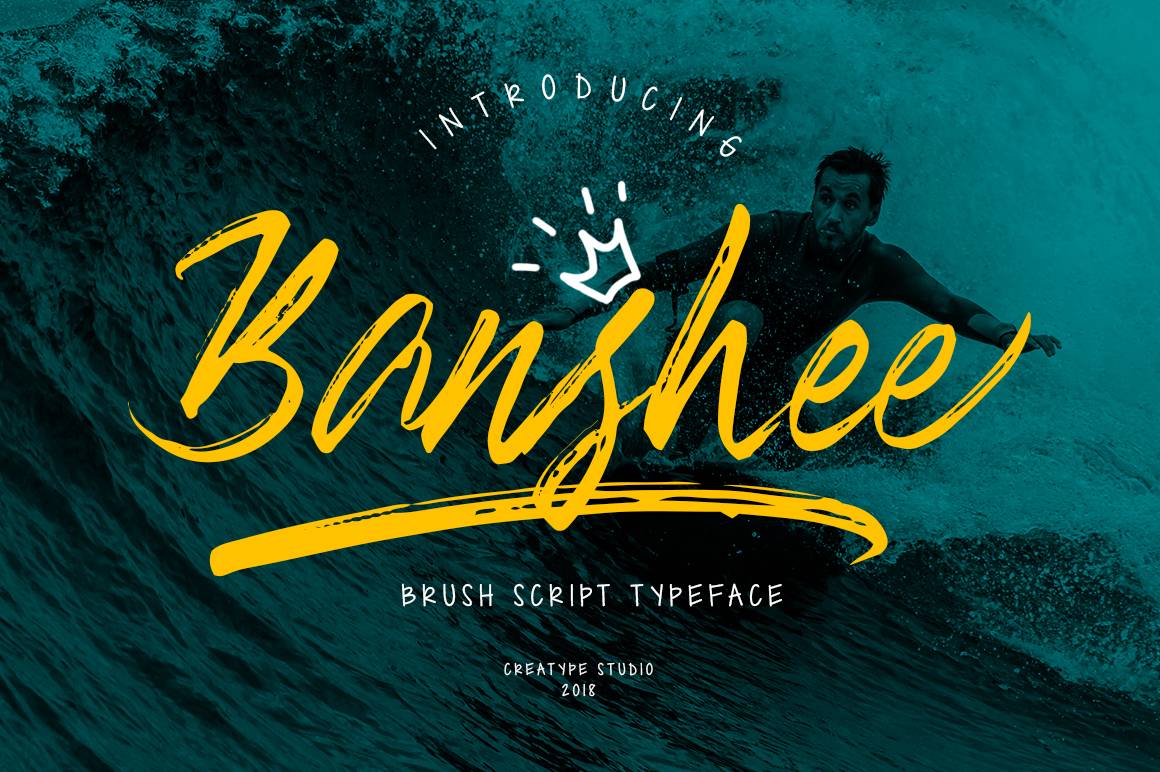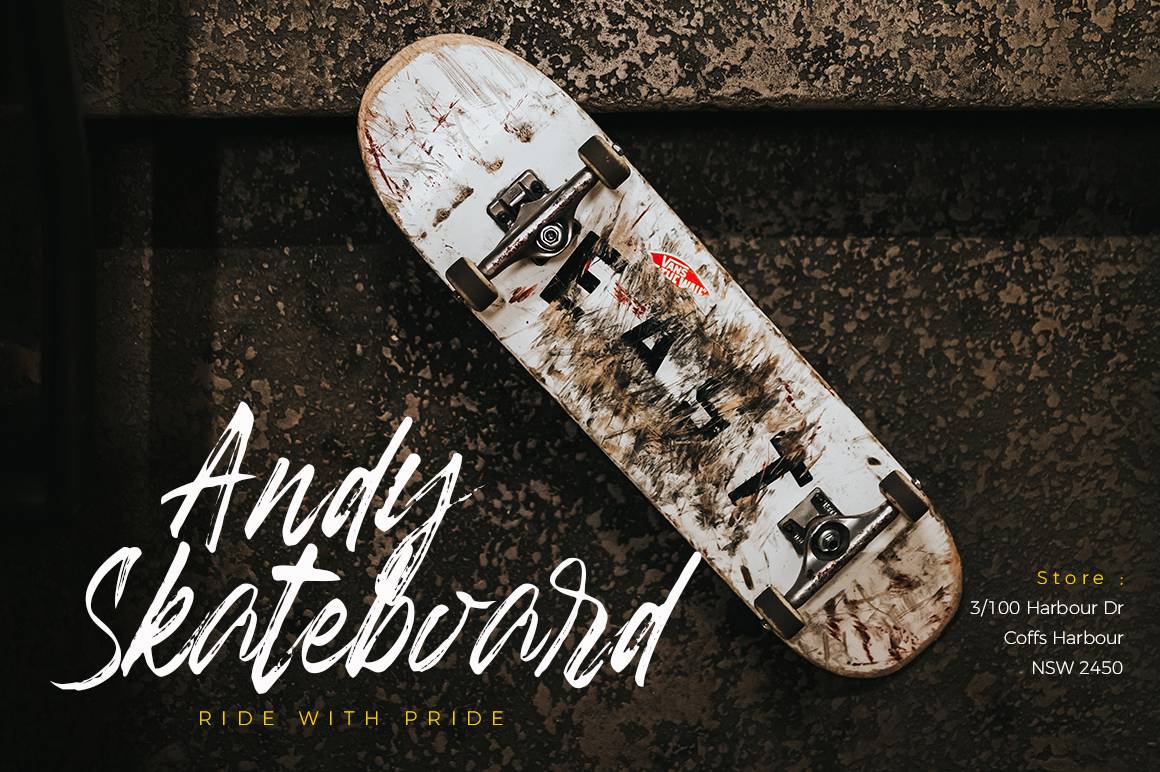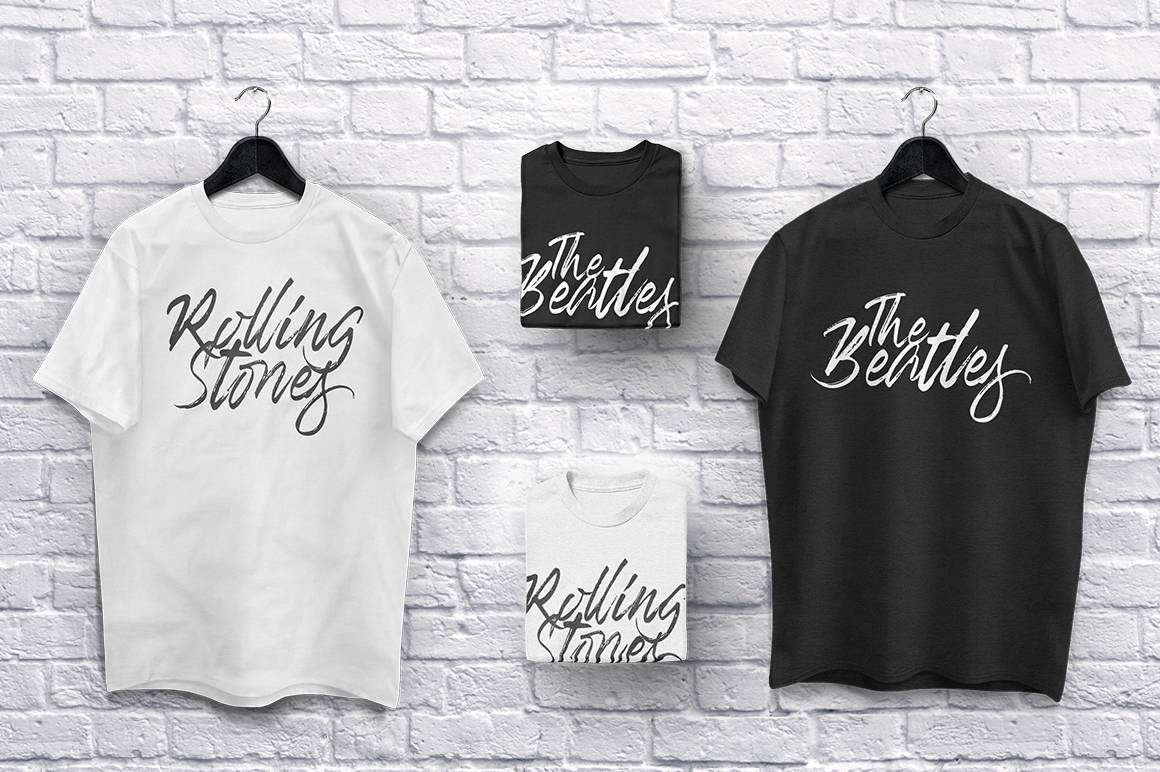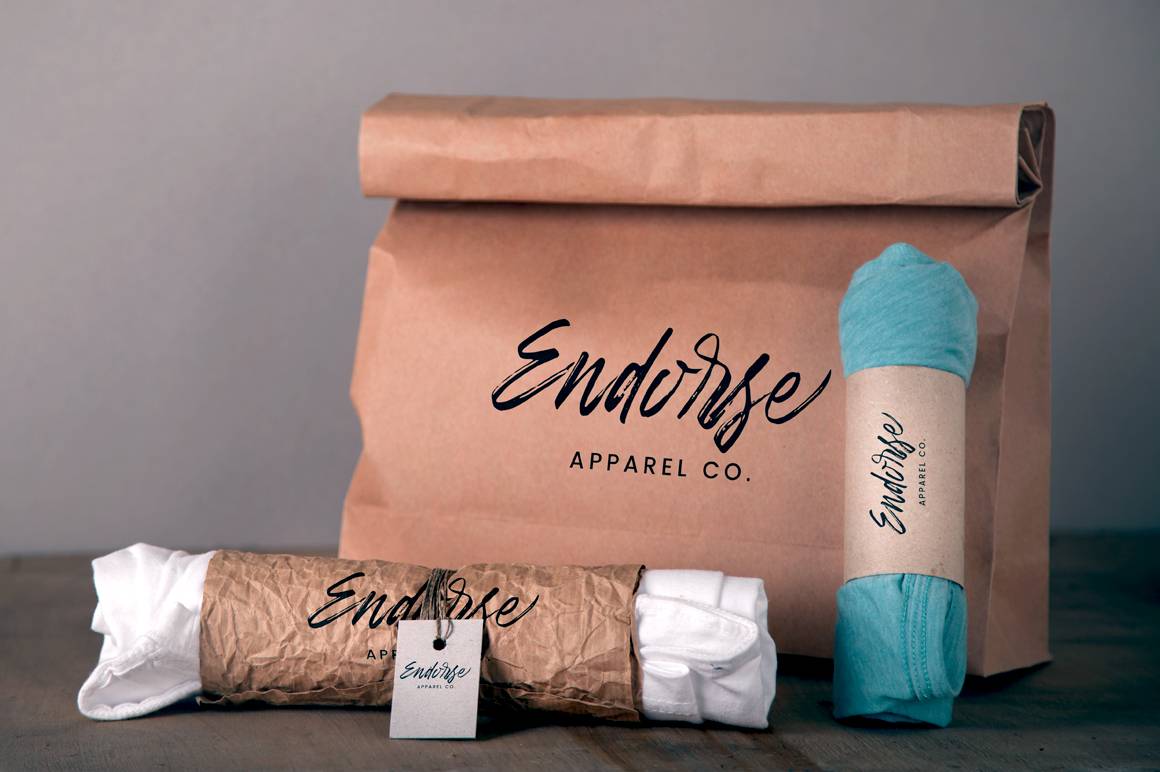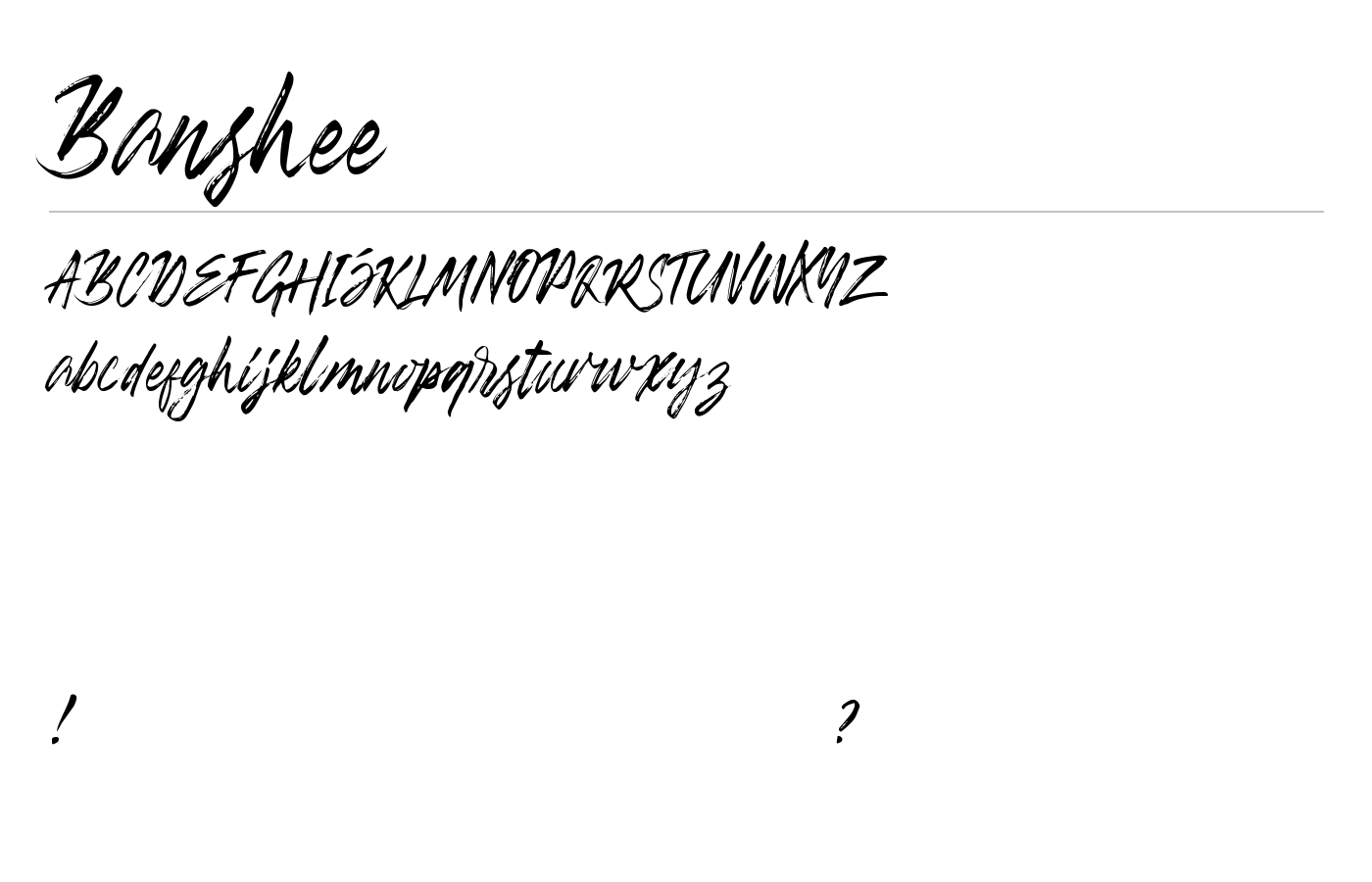
Banshee Brush is a dynamic and expressive script font that mimics natural brush strokes with its fluid, textured lines and varying stroke weights. Its lively, slightly rough edges give it a bold, artistic feel, making it perfect for creative branding, posters, and headlines that want to convey energy and a handcrafted touch. This font shines in designs that benefit from a modern, informal, and personal style.
Banshee Brush Font
About Banshee Brush Font
| Font family | Banshee Brush Font |